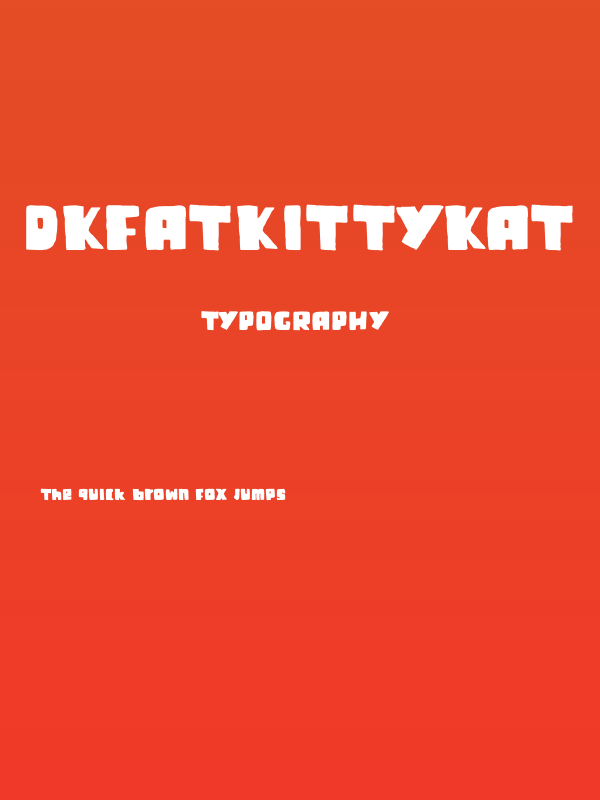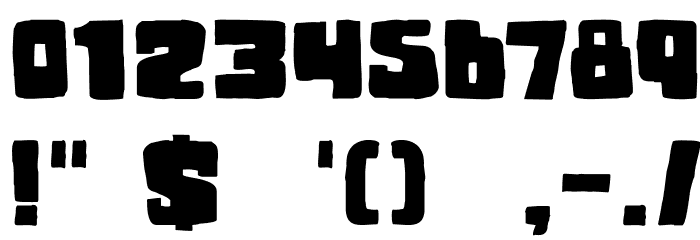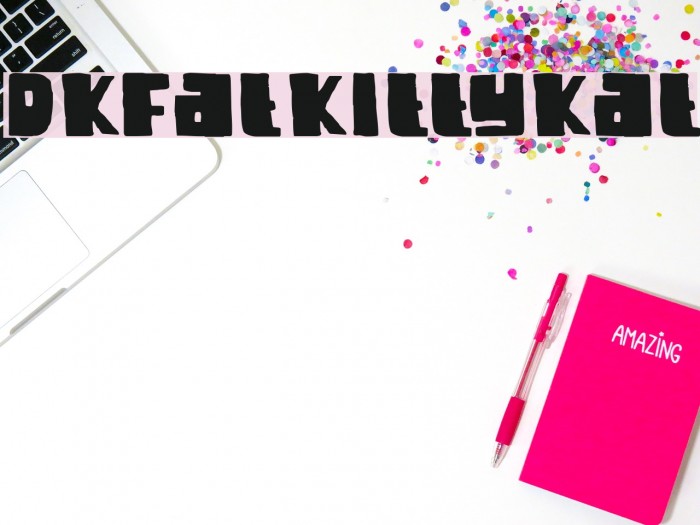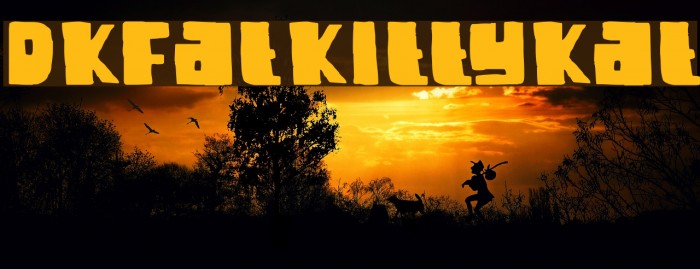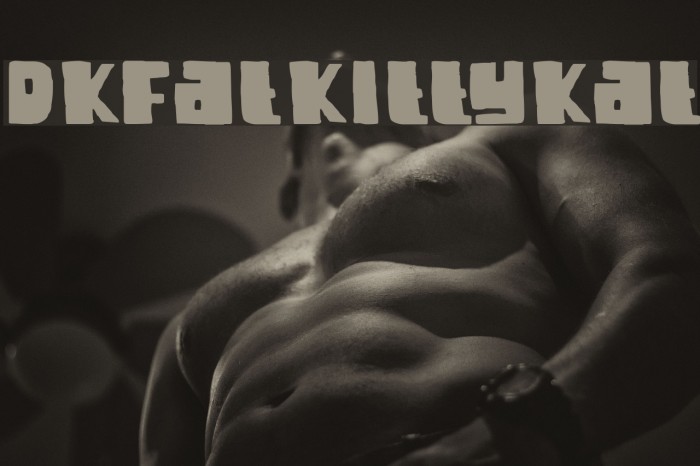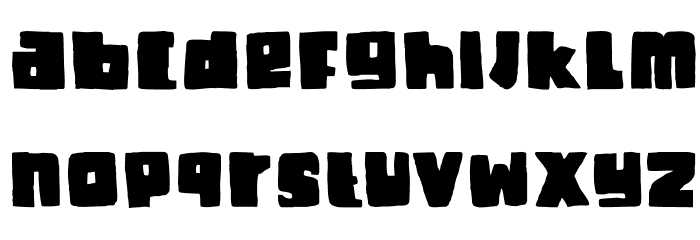
DKFatKittyKat Font
DKFatKittyKat Description
This font features a bold and playful design with a chunky, uneven appearance that gives it a hand-drawn feel. The characters are wide and have a slightly irregular shape, adding to the whimsical and informal style. The strokes are thick and consistent, creating a strong visual impact. The overall look is reminiscent of graffiti or street art, making it stand out with its unique personality. The font includes a full set of uppercase and lowercase letters, numbers, and a variety of special characters, all maintaining the same bold and quirky aesthetic.
| Use Case | Logos, Posters, Creative projects |
| Proposed Projects | Ideal for children's book covers, playful branding, posters, and creative projects that require a fun and informal touch. |